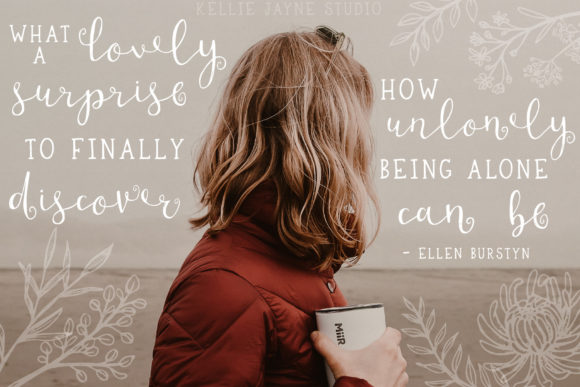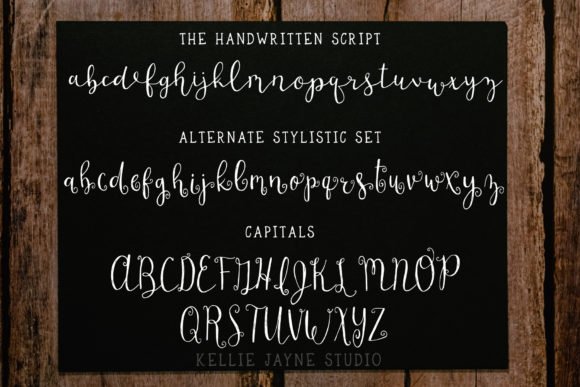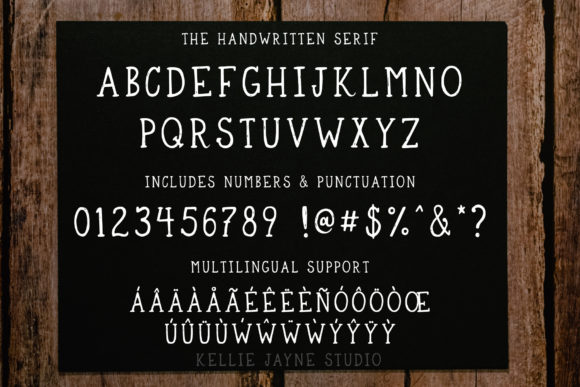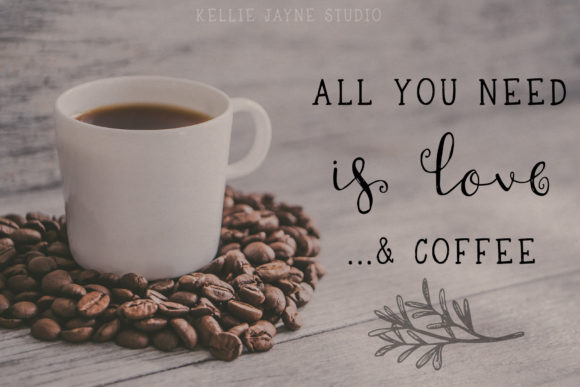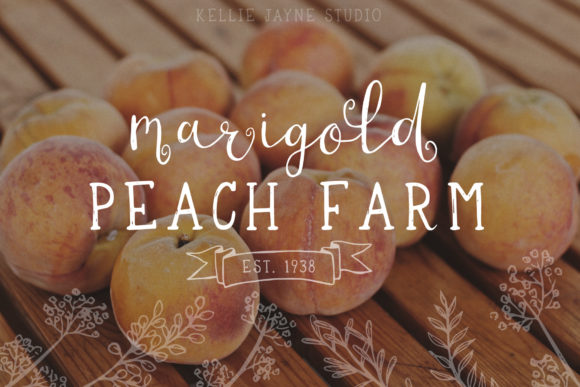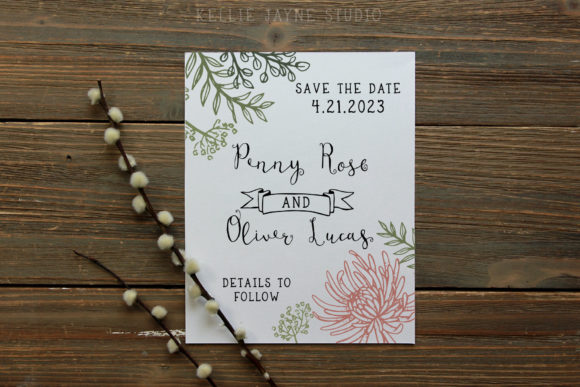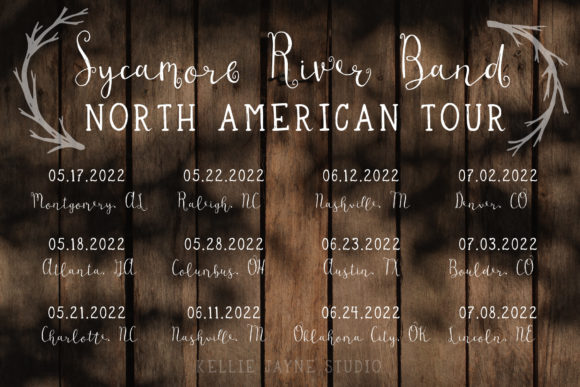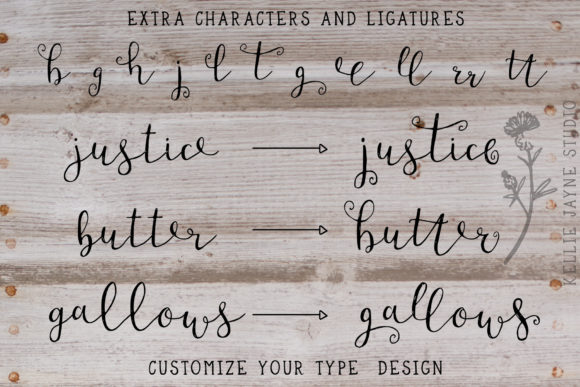
Blueberry Muffin Font
About Blueberry Muffin Font
“Blueberry Muffin” is a delightful combination of a handwritten script and a serif font duo, bringing together whimsy and rustic charm. The duo features a script font with a delicate touch and a serif font inspired by the aesthetics of old signs and typewriter letters. This unique blend creates a versatile and engaging typeface that can be applied to various design projects.
The script font in “Blueberry Muffin” adds a whimsical and playful vibe to your designs. Its delicate strokes bring a sense of elegance, making it suitable for projects that require a touch of charm. Whether used in invitations, quotes, or branding materials, the script font imparts a friendly and approachable feel.
On the other hand, the serif font draws inspiration from the vintage appeal of old signs and the classic look of typewriter letters. This adds a rustic and timeless quality to the duo. The serif font is versatile, lending itself well to projects where a more traditional and sturdy typeface is desired, such as in headlines, titles, or for creating a vintage aesthetic.
The combination of the script and serif fonts allows for a dynamic interplay between elegance and nostalgia. Whether used together for a cohesive look or separately to achieve distinct styles, “Blueberry Muffin” provides creative flexibility for a variety of design applications.
The whimsy of the script font, paired with the rustic charm of the serif font, makes “Blueberry Muffin” well-suited for branding projects, packaging, signage, invitations, and more. The duo offers a balance between modern elegance and vintage-inspired aesthetics, making it a versatile choice for those seeking a typeface that stands out with character and style.
In summary, “Blueberry Muffin” is a handwritten script and serif font duo that captures the essence of whimsy and rustic charm. Whether you’re aiming for an elegant touch, a vintage feel, or a combination of both, this duo provides a unique and engaging typographic solution for your creative endeavors. Let “Blueberry Muffin” be the versatile font duo that adds a delightful and timeless quality to your designs.